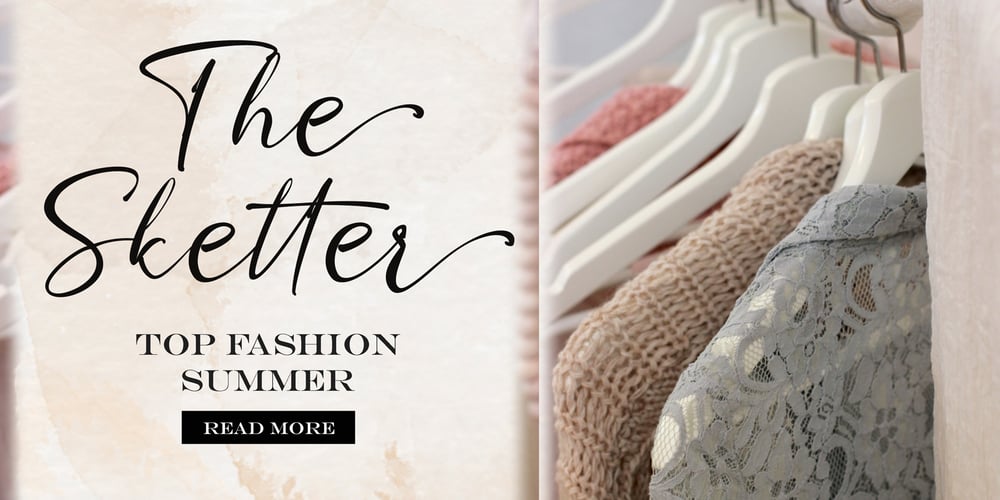
Fifa Cup Font Family was designed by Reza Mukhtazar and published by Rezastudio. Fifa Cup contains 1 styles and family package options. Fifa Cup is a stylish modern calligraphy font with casual chic flair. It is perfect for branding, wedding invites and cards, and maybe for red wine label. Fifa Cup includes full set of gorgeous uppercase and lowercase letters, numerals, a large range of punctuation. All lowercase letters include beginning and ending swashes, giving realistic hand-lettered style. What you get, darling?In order to use the beautiful swashes, you need a program that supports OpenType features such as Adobe Illustrator CS, Adobe Photoshop CC, Adobe Indesign and Corel Draw. but if your software doesn’t have Glyphs panel, you can install additional swashes font files:Thanks and have a wonderful day.